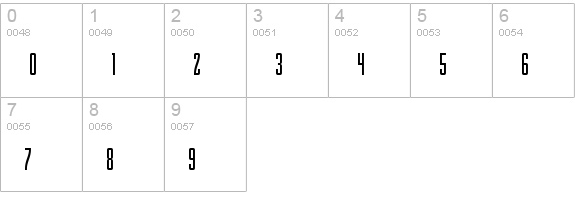
Skinny Sunbeams Font Details
Skinny Sunbeams is a free for personal use font in the General > Sans-Serif category, designed by Darrell Flood. It has been downloaded 220 times and is available for Windows, Mac and Linux.
Skinny Sunbeams font is a whimsical and charming typeface that exudes a sense of warmth and playfulness. Its delicate strokes and slender letterforms evoke a sense of lightness and grace, making it perfect for adding a touch of elegance to your designs. The unique sunbeam-inspired details give this font a distinctive look that sets it apart from other fonts.
With Skinny Sunbeams font, you can bring a touch of whimsy and sophistication to your projects, whether you're designing invitations, greeting cards, posters, or branding materials. Its versatility makes it suitable for a wide range of applications, from casual to formal.